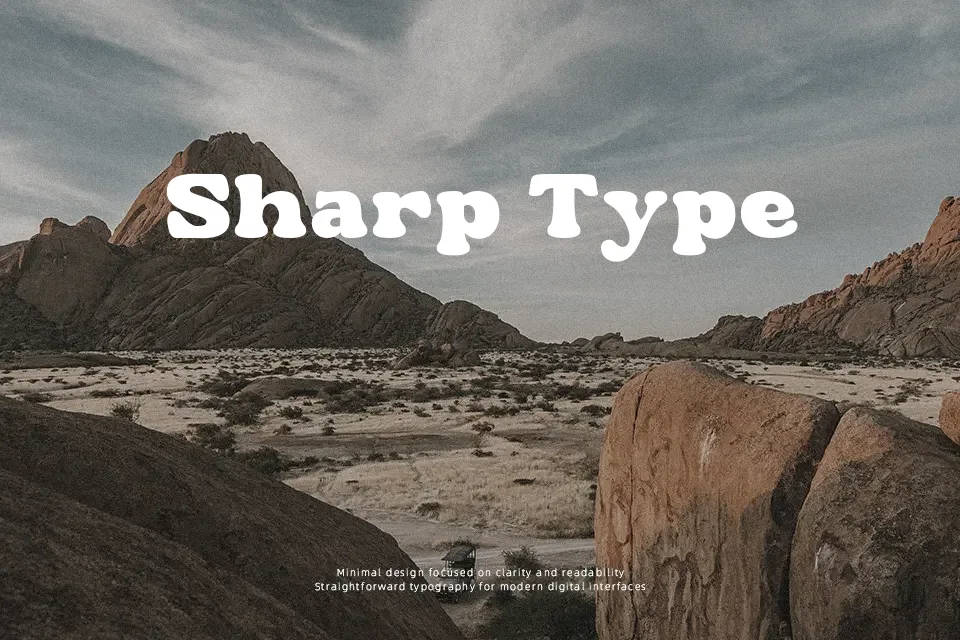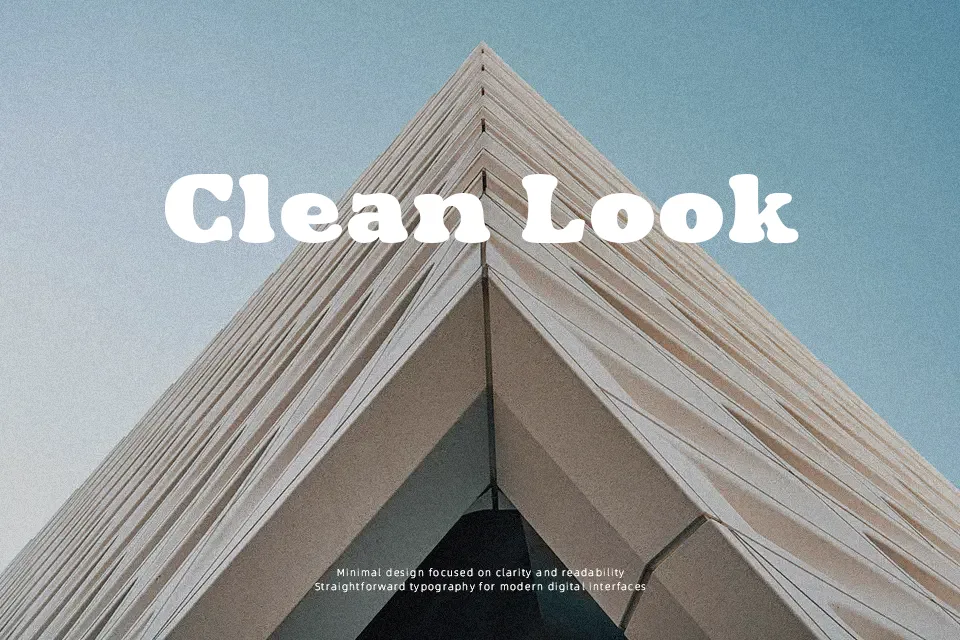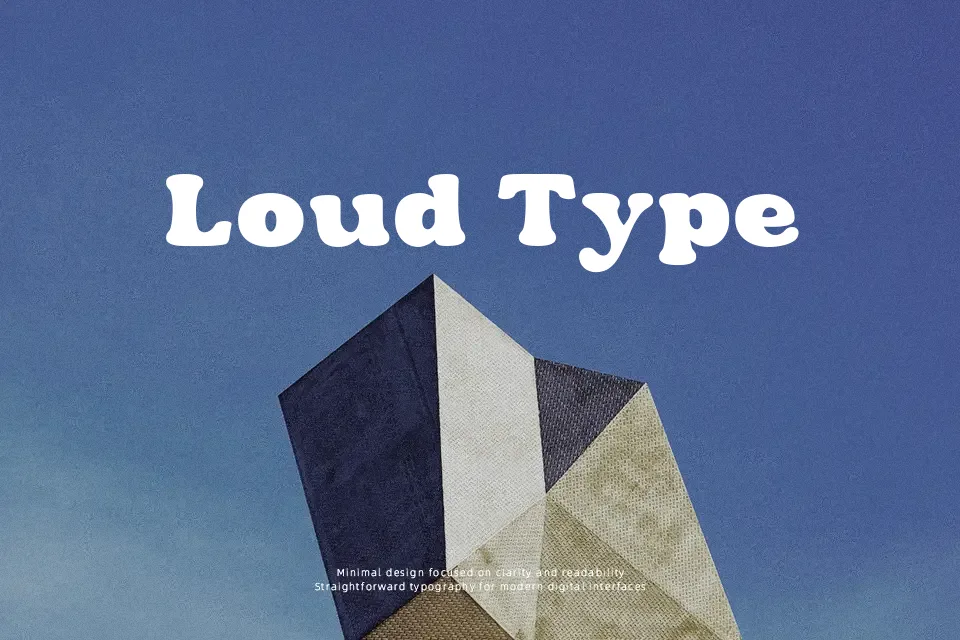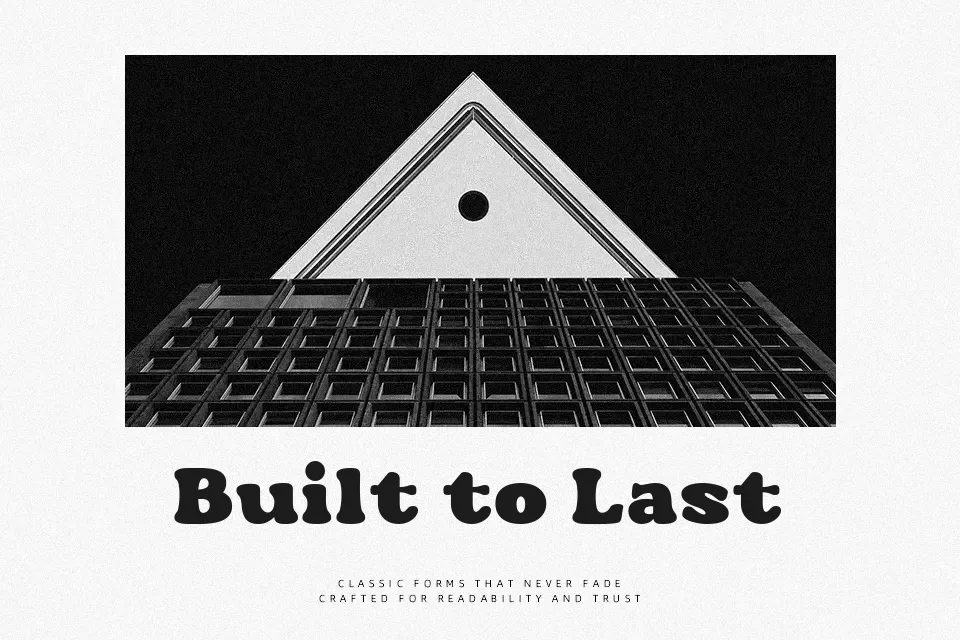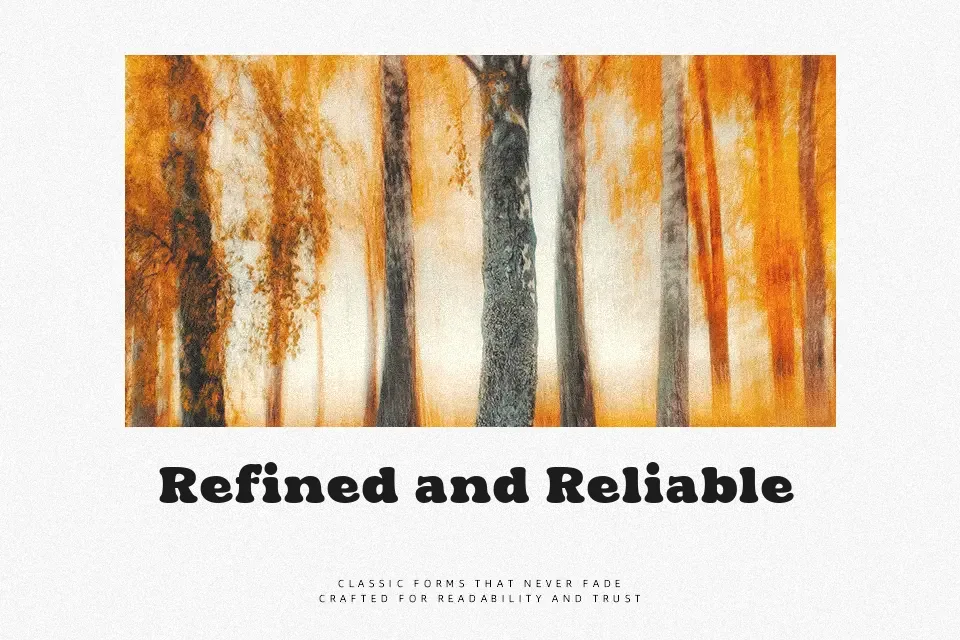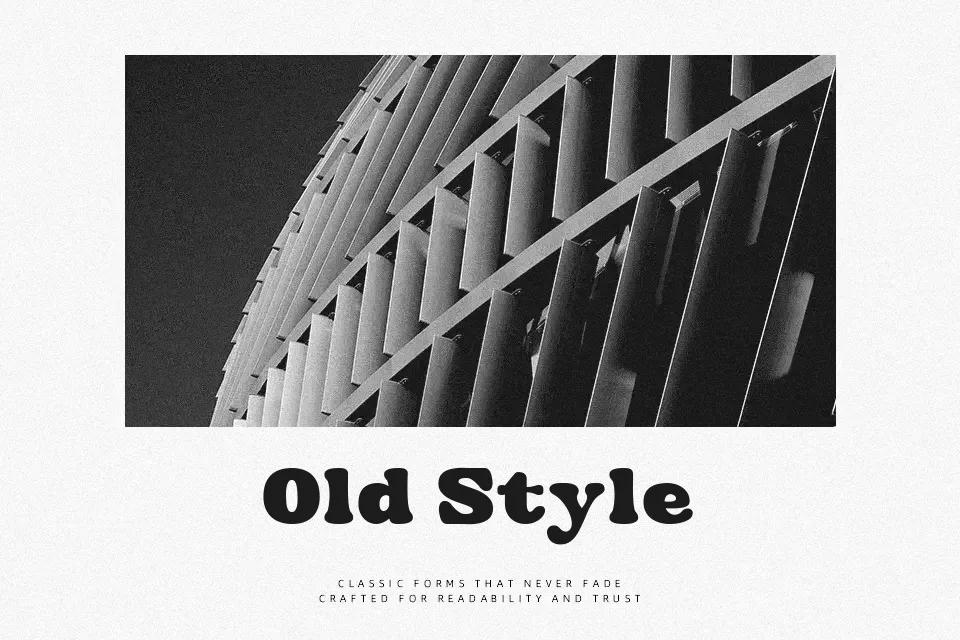
Broncks Font
Broncks Font brings a nostalgic retro serif look, with sturdy verticals, beveled details, and slightly compact spacing that creates a dense, rhythmic texture on the page. Its overall stylefeels bold, vintage, and decorative rather than neutral, so it naturally draws attention in short, punchy text instead of long reading flows. The letterforms carry a mix of sharp and rounded terminals, which gives logotypes, posters, and social graphics a warm, slightly gritty character suited to music or lifestyle themes. It works well when you want display titles with personality and consistent branding across retro-themed campaigns, but it can feel heavy and tiring in small body copy or UI where clarity and subtlety matter more.
Retro music or event posters
Vintage-inspired logos and wordmarks
Social media graphics with 70s–80s flair
Headline treatments in editorial layouts
Long body paragraphs or dense text blocks
Small UI labels or navigation text
Formal corporate or government documents
Minimalist tech or product interfaces